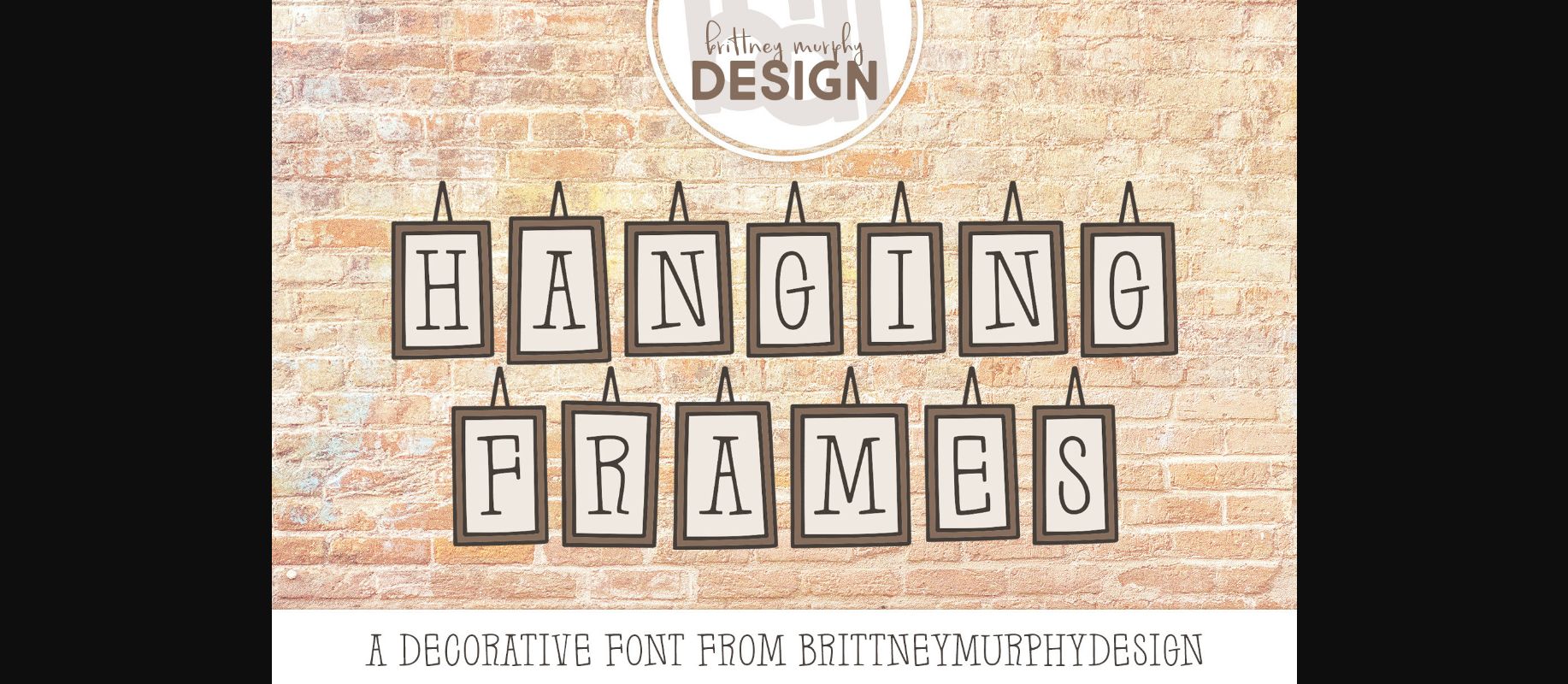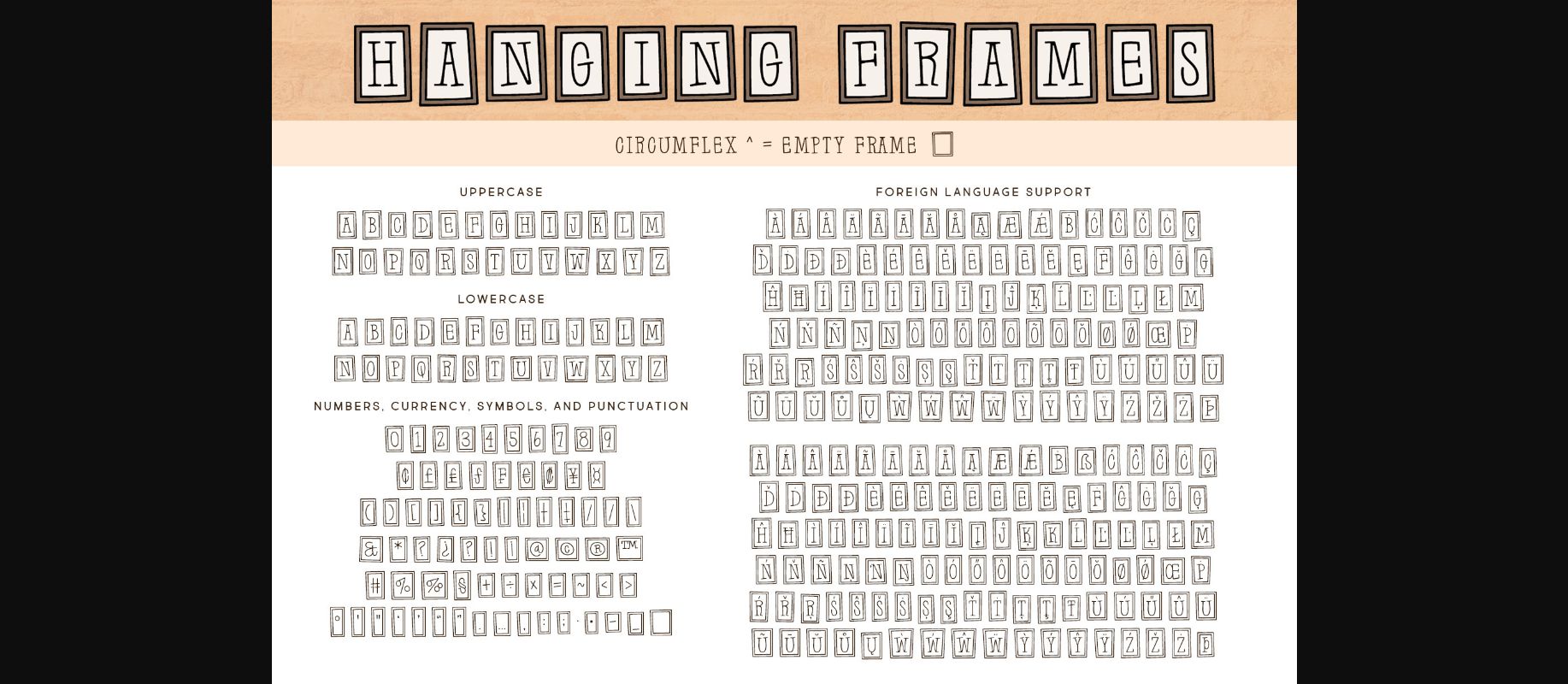
About Hanging Frames Font
Hanging Frames is a decorative font that features letters in frames, creating a unique and eye-catching display. Its ornate and intricate details give it a sophisticated and elegant look that is perfect for wedding invitations, posters, and branding.